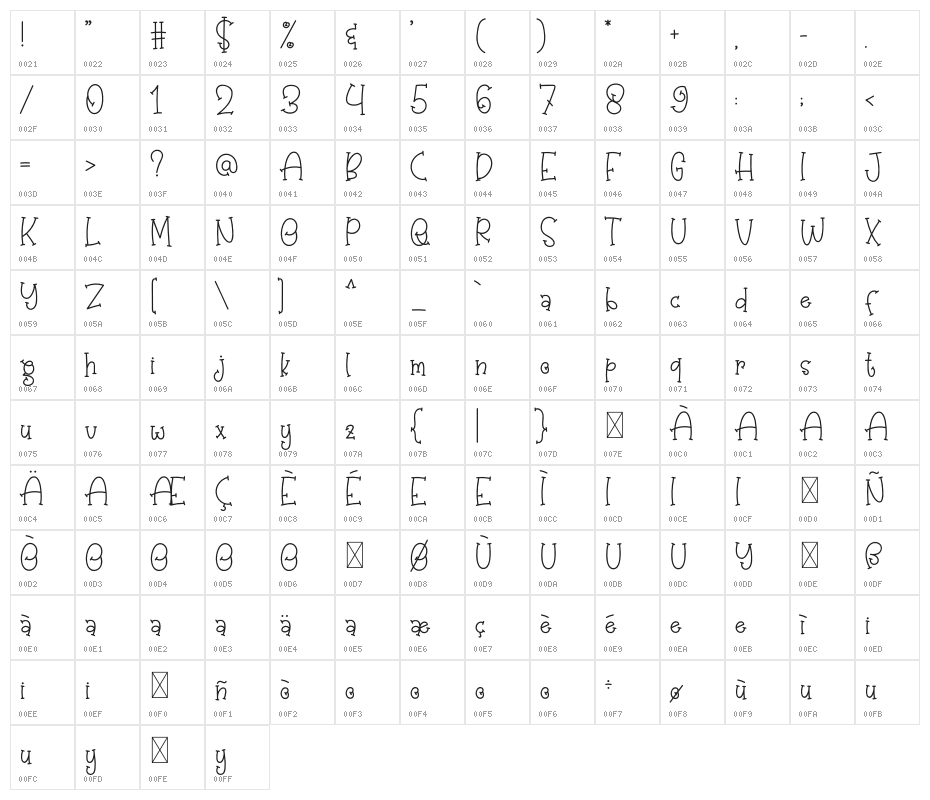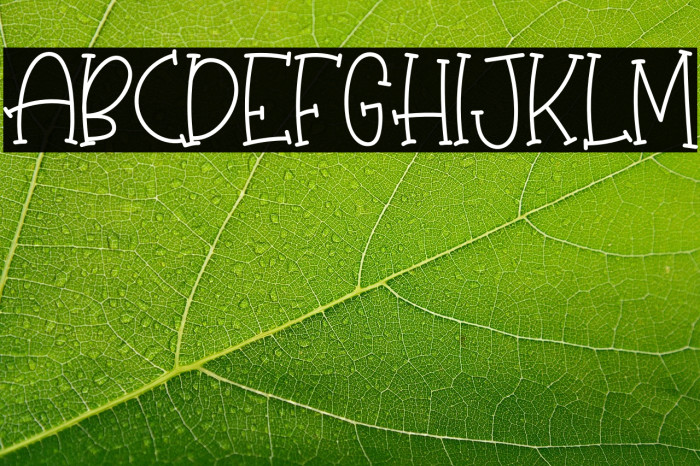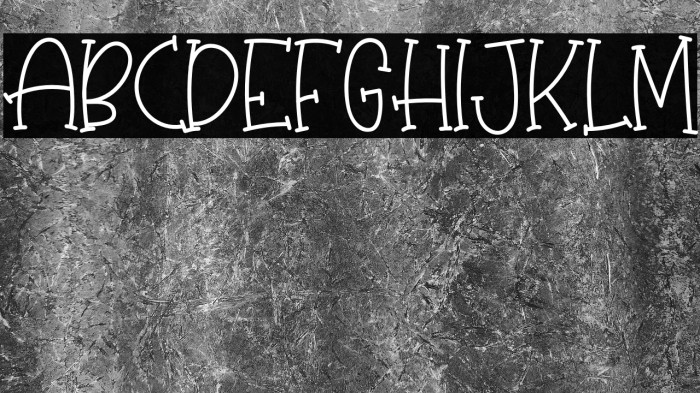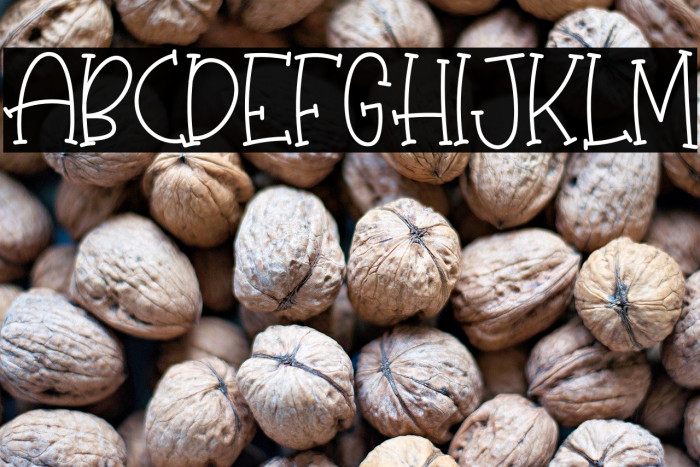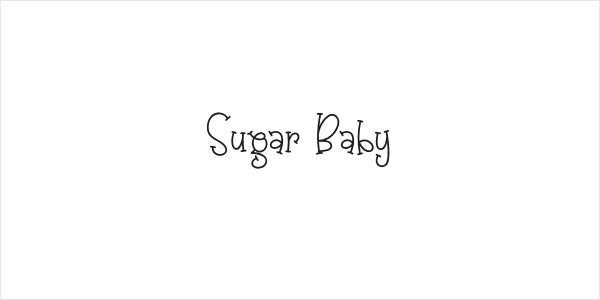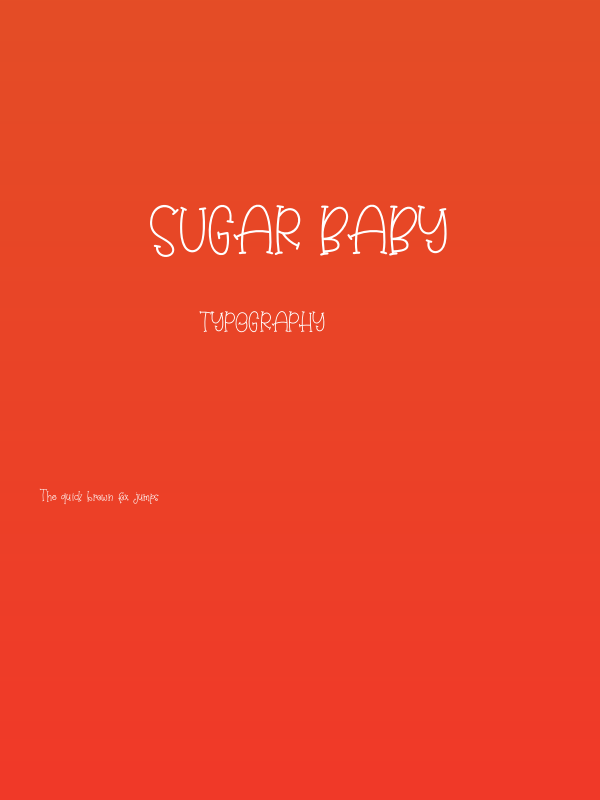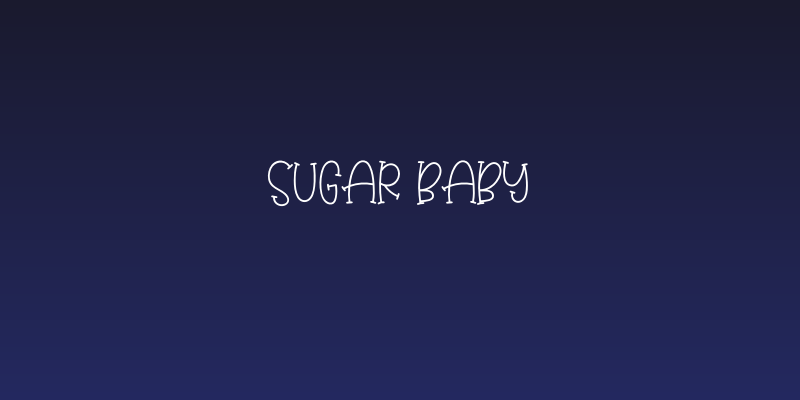
Sugar Baby Font
Sugar Baby Description
This playful and whimsical font features a hand-drawn style with irregular, slightly wavy lines that give it a casual and friendly appearance. The characters are tall and narrow, with exaggerated curves and loops, creating a sense of movement and energy. The uppercase letters are bold and prominent, while the lowercase letters maintain a consistent style with a slightly smaller size. The numbers and special characters follow the same playful design, making the font versatile for various creative projects. Its unique style is perfect for adding a touch of fun and personality to any design.
| Proposed Projects | Ideal for children's books, playful branding, greeting cards, and creative posters. |